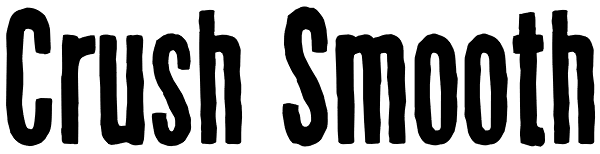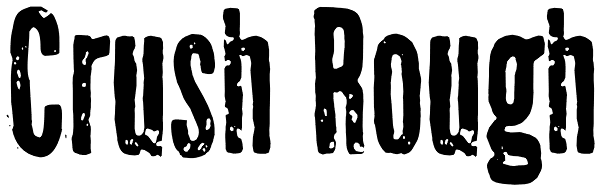
Crush
Get two fonts for the price of one! Crush Smooth and Rough are stylized typefaces offering tight letter spacing, a large x-height and a high degree of legibility at small and large sizes.
Crush Smooth
Crush Rough